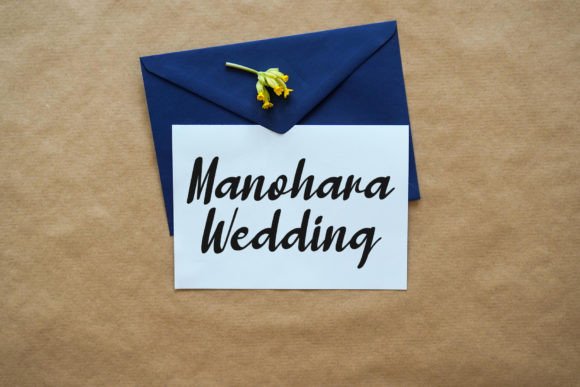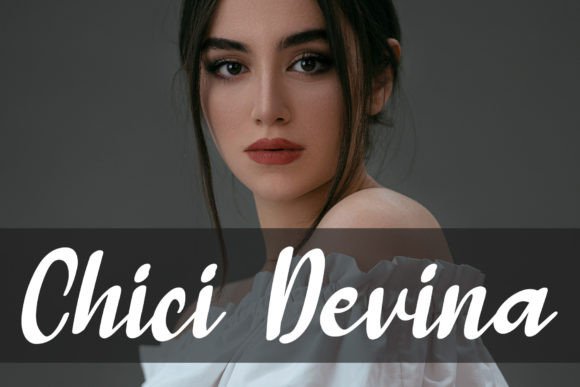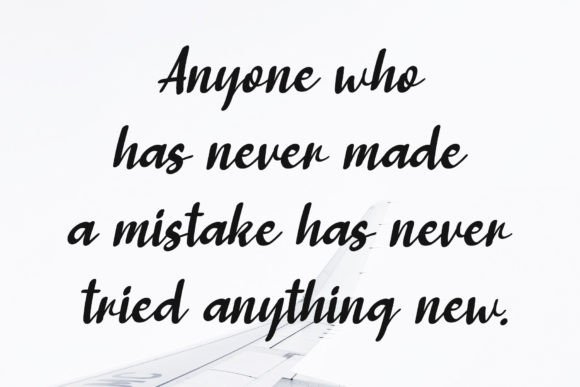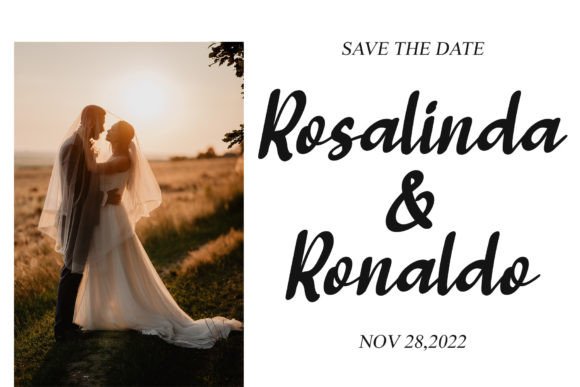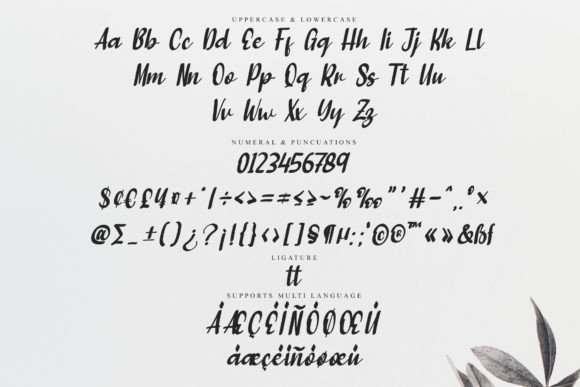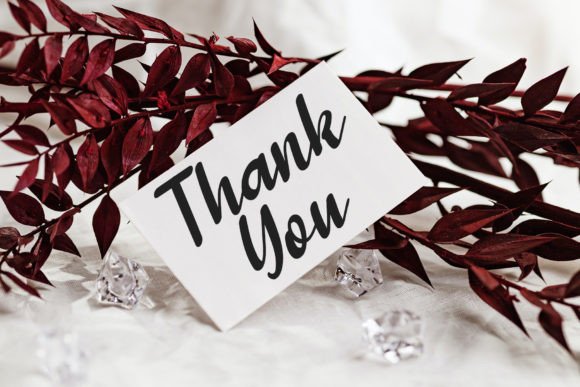
Discovering the Perfect Script: Adventure Font
As designers, we’ve all been there – staring at a blank canvas, trying to find the perfect font to convey the emotions and tone of our design. It’s that magical moment when the right font clicks, and everything falls into place. For me, it was the day I stumbled upon Adventure Font, a charming and elegant script that added a handwritten touch to my designs.
Adventure Font is more than just a font – it’s a way to evoke feelings of warmth, elegance, and sophistication in your designs. From wedding invitations to business cards, this versatile font is perfect for any project that requires a personal touch. As designers, we’re always on the lookout for fonts that can elevate our work and make it stand out. Adventure Font is a valuable addition to any designer’s toolkit, offering a unique and stylish way to express themselves.
Adventure Font Key Features
- Size: Multi-style font with 12 weights and 6 styles (Regular, Italic, Bold, Bold Italic, Condensed, Extended)
- Unique Characteristics: Hand-drawn design with a mix of modern and classic elements, creating a unique and adventurous feel
- Language Support: Supports a wide range of languages, including Latin, Cyrillic, Greek, and many others
- Kerning and Ligatures: Includes advanced kerning and ligature support for improved text readability and aesthetic appeal
Adventure Font Review
I recently had the chance to dive into the Adventure Font, and I must say, it’s an interesting choice for designers looking to add some flair to their projects. ✨ One thing that immediately caught my attention was its bold, adventurous vibe – perfect for any project that needs to convey a sense of excitement and exploration. The font’s irregular shapes and asymmetrical lines give it a unique feel that’s sure to grab attention.
- ✨ Unique and bold design that’s perfect for attention-grabbing headlines
- ✨ Great for use in projects that need to convey a sense of adventure or exploration
- ✨ Supports a wide range of languages, making it a versatile choice for designers
- ⚠️ The font’s bold design can be overwhelming if used too extensively, so be sure to use it sparingly
- ⚠️ The font’s irregular shapes can make it difficult to read in certain contexts, such as body text or small print
Overall, I’d say the Adventure Font is a solid choice for designers who want to add a bit of flair to their projects. While it has its limitations, it’s a great option for use in headlines, titles, or anywhere else you need to convey a sense of excitement and adventure.
The Adventure Font is ideal for creating bold and adventurous designs, making it perfect for:
- Travel brochures and websites
- Adventure sports and outdoor brands
- Exploratory and scientific publications
Remember to experiment with different font sizes and styles to get the most out of the Adventure Font.